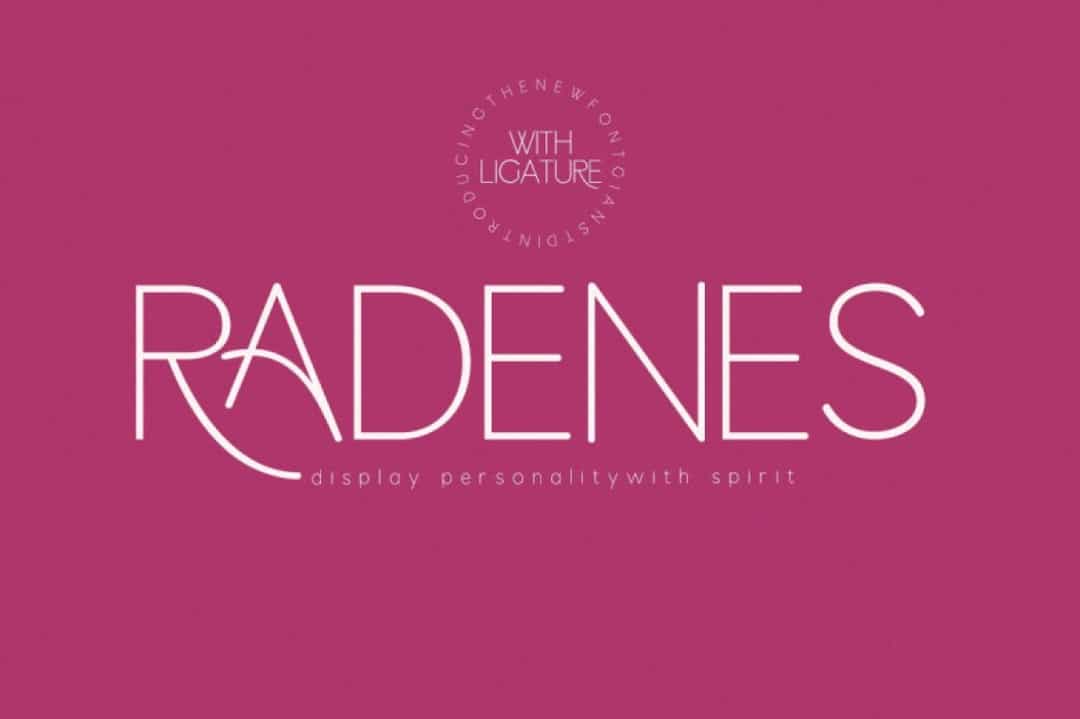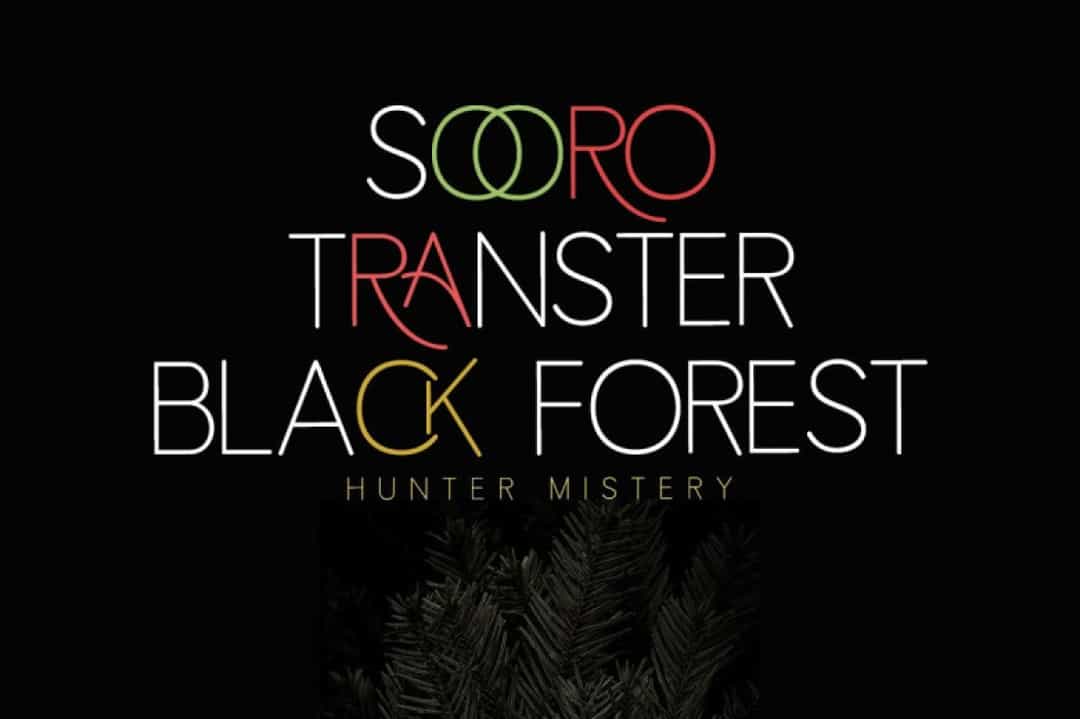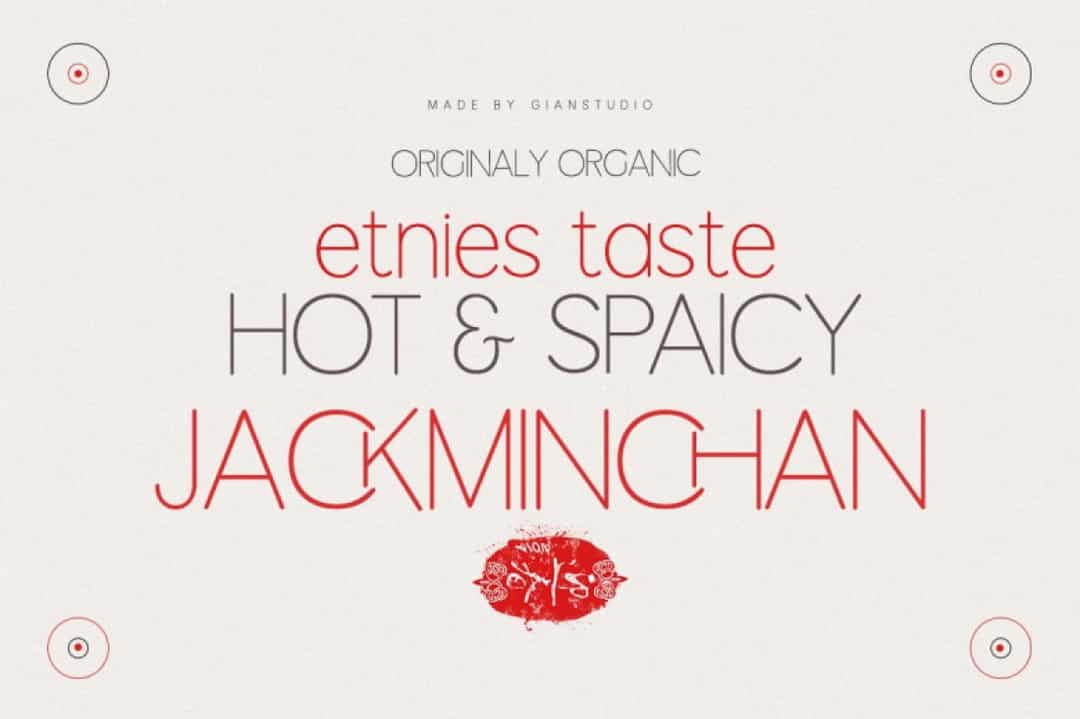
Discover Radenes Font, part of the Sans Serif collection—a versatile and unique font perfect for adding a personal touch to your projects. Download it for free and enjoy crafting designs with style, from invitations to social media posts. This font is available exclusively for personal use, giving you the freedom to create without limits. Unlock your creativity with Radenes Font today!
Radenes is my latest sophisticated sans-serif font style to add elegance and class to your designs. Perfect for branding, logotypes, wedding invitations, monograms blog headlines or anything else; take a look at all its examples and feel as inspired as I was while creating it!